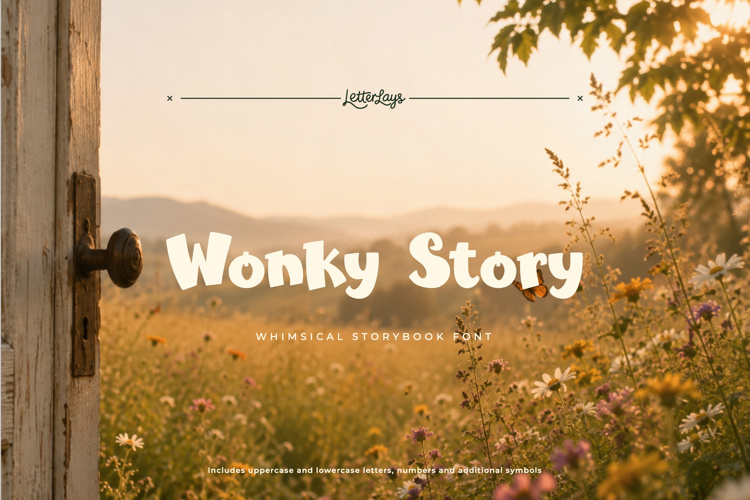
Wonky Story Font
✦ Wonky Story Free is a limited personal-use demo of the full Wonky Story typeface by Letterlays. Create storybook covers, children books, fairy tale posters, whimsical branding, and expressive display graphics with Wonky Story.
🎨 Style notes: ✨ Wonky Story is a whimsical storybook display font with wonky fairytale letters, warm golden colors, and charming hand-drawn storytelling.
🔤 This demo includes uppercase Latin letters, numerals and selected basic punctuation for personal mockups, layout tests and concept work.